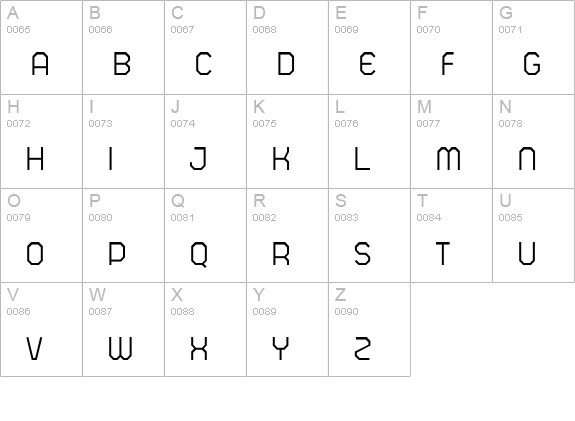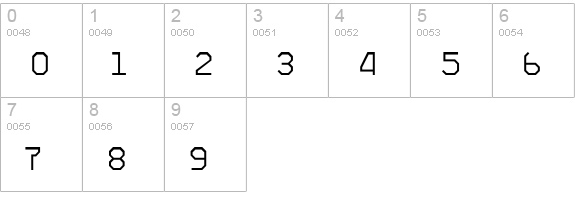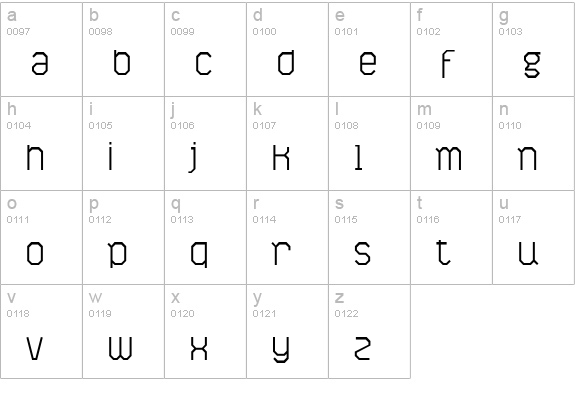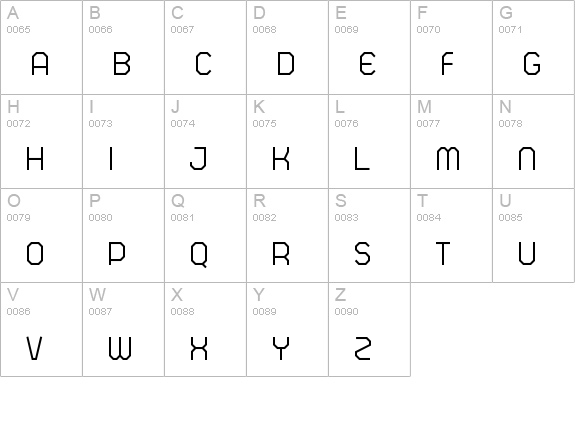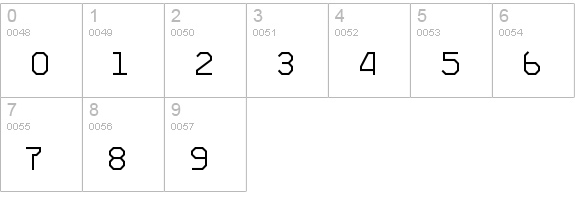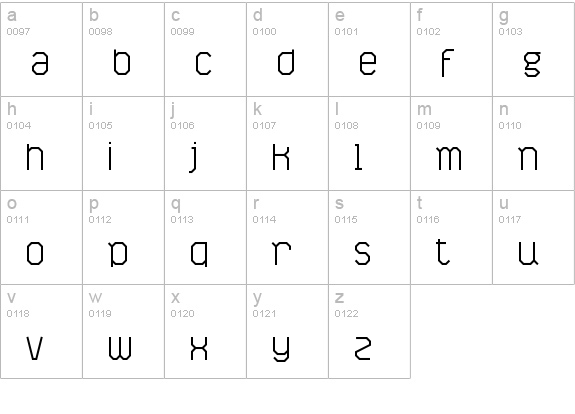
Pictaves Light Font Details
Pictaves Light is a refined, elegant variant in the Pictaves typeface family \xE2\x80\x94 well suited to elegant body text, refined sub-headings, and luxury branding.
Introducing Pictaves Light, a captivating font that effortlessly combines elegance and sophistication with a touch of playfulness. This remarkable typeface is perfect for adding a unique and artistic flair to your designs, whether it be for logos, headlines, invitations, or branding projects. Pictaves Light features delicate and beautifully crafted letterforms that exude a sense of grace and refinement. With its slender strokes and subtle curves, this font captures attention and evokes a sense of charm and intrigue. Its clean and legible design ensures readability even at smaller sizes, making it versatile for various applications. What's more, Pictaves Light is free! Yes, you read that right. This extraordinary font is available for download at FontsMarket.com at no cost. Now you can enhance your creative endeavors without breaking the bank. Whether you are a professional designer or a passionate hobbyist, Pictaves Light offers you the opportunity to elevate your designs without any financial burden. So why wait? Unleash your creativity and explore the endless possibilities that Pictaves Light has to offer. Download this remarkable font today and let your designs shine with its distinctive charm and elegance. Remember, it's freely available at FontsMarket.com, where quality and affordability meet to empower your creative journey.